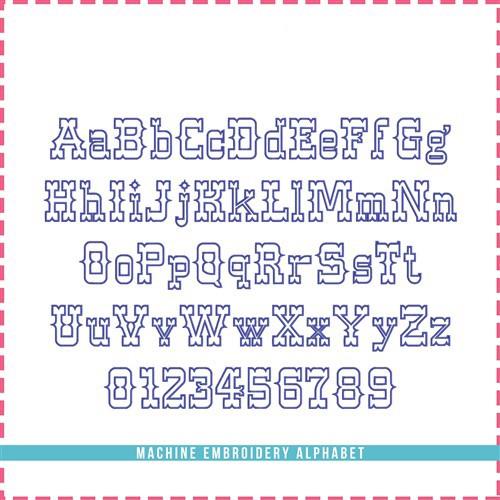
Maya Kreations is happy to present Wanted Applique Font machine embroidery font which has Bold applique embroidery font with a Western theme, ideal for quilts and decorative home decor. Available in PES, DST, and 6 other formats, it adds a striking touch to any stitching project. Sizes range from 2.5 to 7. included. If you would like to view more embroidery fonts and alphabets please search our embroidery fonts page.